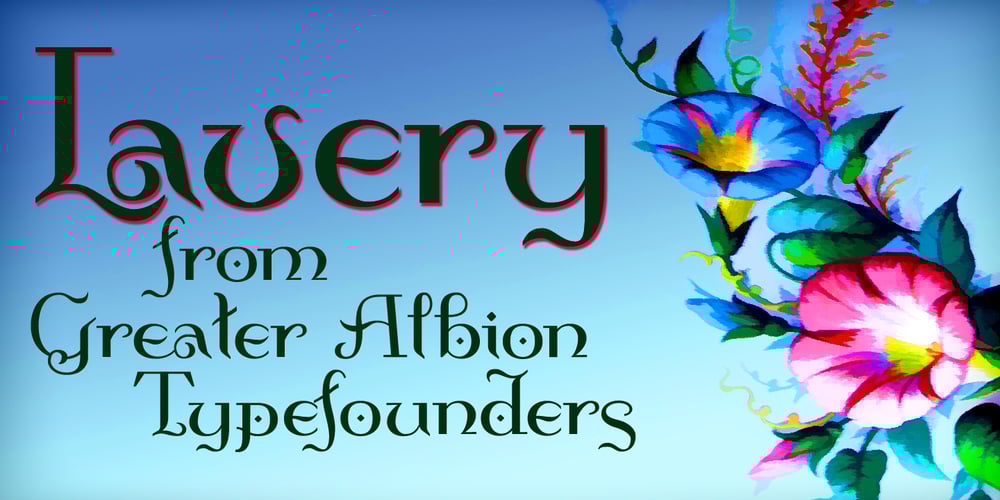
Lavery Font Family was designed by Paul James Lloyd and published by Greater Albion Typefounders. Lavery contains 1 styles and family package options. Lavery is a calligraphic display face, drawing its inspiration from the designs of the early years of the 20th century. It has an extensive range of ligatures and other opentype features and a delightfully hand-drawn feel. Lavery combines a great deal of character with clear legibility and a spirit of fun.